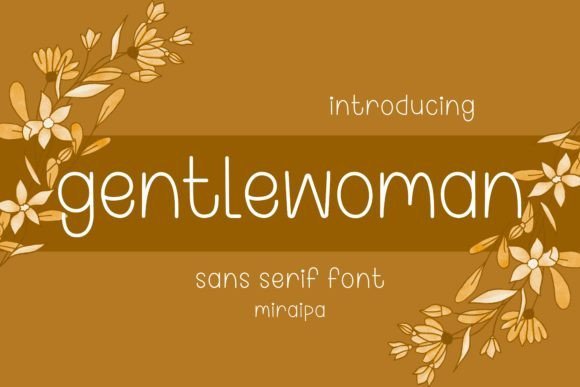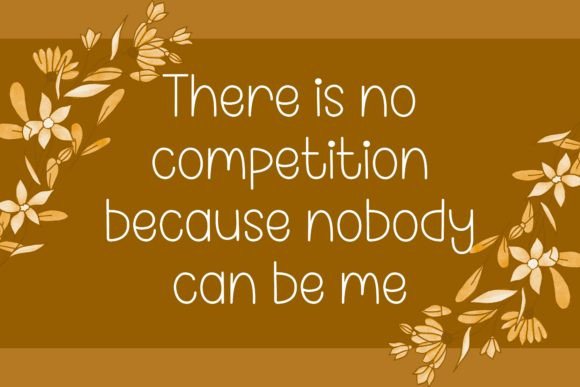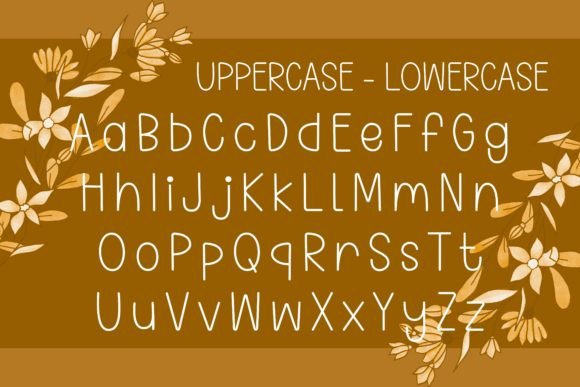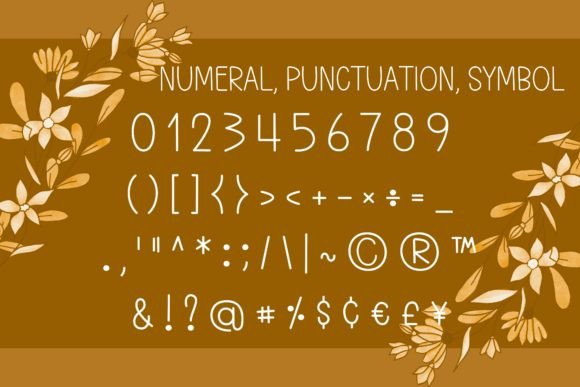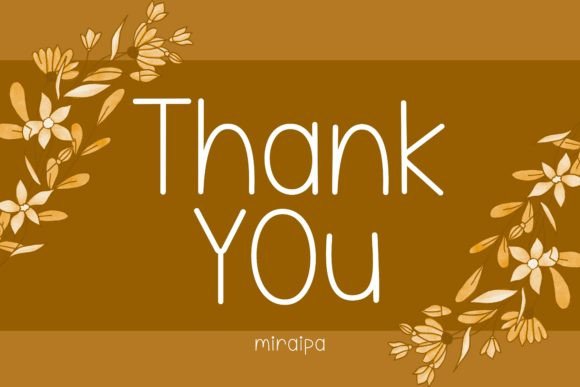
Have you ever stumbled upon the perfect font that brings a spark of creativity to your project? For me, that moment came when I discovered the Gentlewoman Font. Its modern and friendly handwritten sans serif style immediately caught my eye, and I knew I had to give it a try.
The Gentlewoman Font is a versatile and charming addition to any project. Whether you’re planning a special occasion like a wedding or a fun event like a Halloween party, this font is sure to bring a friendly touch to your invitations, posters, or social media posts. As a designer, you’ll appreciate the value of having a font that can add a personal and whimsical feel to your work.
Gentlewoman Font Key Features
- Font Family: Gentlewoman is a elegant, modern sans-serif font, ideal for use in magazines, books, and other publications that require a sophisticated and refined look.
- Unique Characteristics: Gentlewoman Font features a unique blend of elegance and modernity, with a distinctive x-height and a subtle flair at the terminals of the letters, giving it a distinctive and sophisticated look.
Gentlewoman Font Review
Overall, I found the Gentlewoman Font to be a well-crafted typeface that effectively captures a sense of elegance and sophistication. ✨ The font’s refined lines and subtle flourishes make it a great choice for projects that require a touch of refinement, such as high-end fashion or luxury branding.
One of the standout features of Gentlewoman is its excellent legibility, making it easy to read at a variety of font sizes. ✨ The font also has a wide range of weights, from light to bold, which provides designers with a lot of flexibility when it comes to choosing the perfect style for their project.
- Excellent legibility
- Wide range of weights
- Elegant and sophisticated design
- Great for high-end fashion or luxury branding
- May be too formal for casual projects
- Some users may find the font’s lines too delicate
- Not ideal for projects that require a bold, edgy feel
- Can be difficult to pair with more playful fonts
Overall, I would highly recommend the Gentlewoman Font for designers who are looking to add a touch of sophistication and elegance to their projects. While it may have some limitations, its excellent legibility and wide range of weights make it a great choice for a variety of applications.
Use Gentlewoman Font for elegant and sophisticated designs, such as:
– Luxury branding and packaging
– High-end fashion and beauty designs
– Any project where a classic, refined look is desired.
Getting the Most Out of Gentlewoman Font
To maximize the impact of Gentlewoman Font, pair it with high-quality images and design elements. Experiment with different font sizes, colors, and styles to create a unique and polished look.
Alternatives to Gentlewoman Font
Playfair Display is a luxurious and elegant script font that is ideal for high-end fashion magazines, luxury brands, and special occasions. It has a similar sophistication to Gentlewoman Font but with a more dramatic flair.
Comparison: While Gentlewoman Font is known for its classic and understated elegance, Playfair Display is more opulent and attention-grabbing.
Carolyna Pro is a modern and sophisticated script font that is perfect for fashion, beauty, and lifestyle brands. It has a similar level of elegance to Gentlewoman Font but with a more contemporary twist.